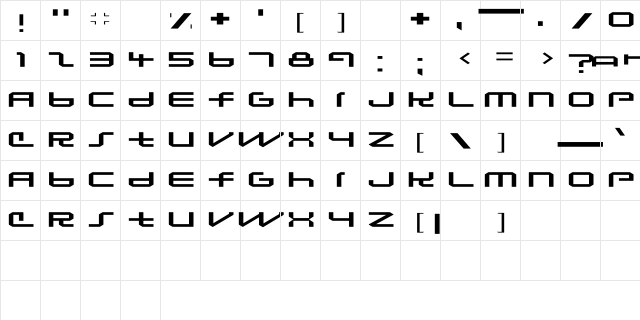
LHF Convecta Regular Free Font
LHF Convecta Regular
Foundry: Chuck Davis for Letterhead Fonts
Design Context for LHF Convecta
LHF Convecta is a composed and adaptable typeface that performs quietly and consistently across a wide range of design contexts.